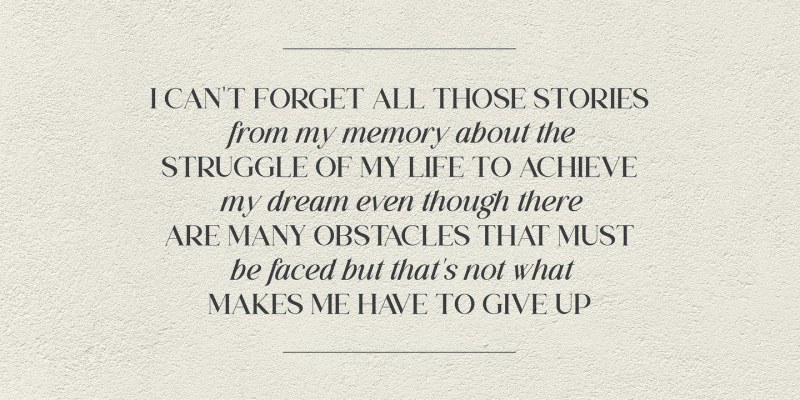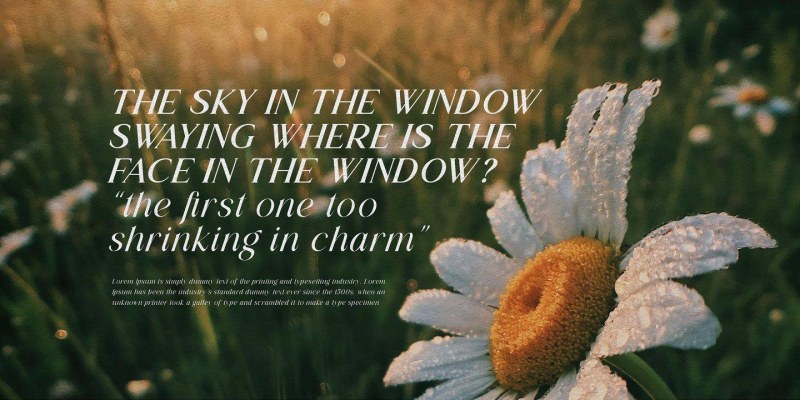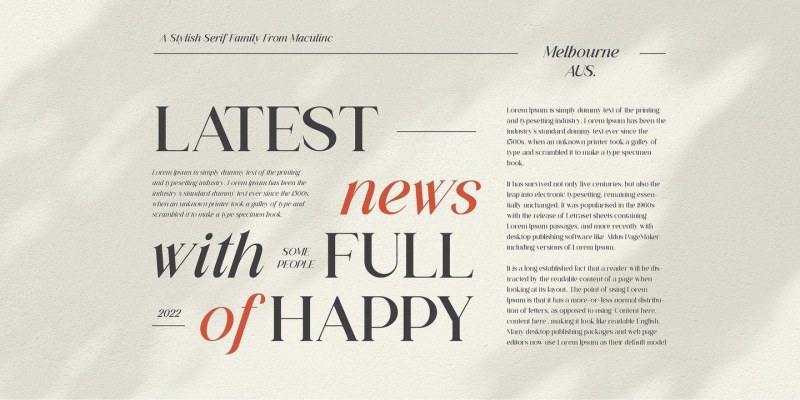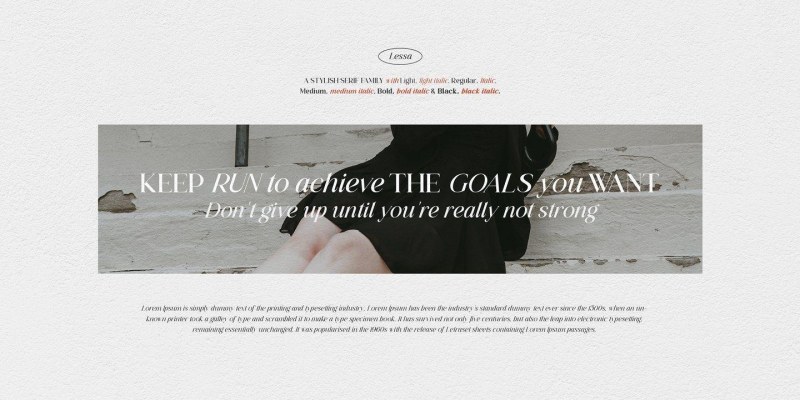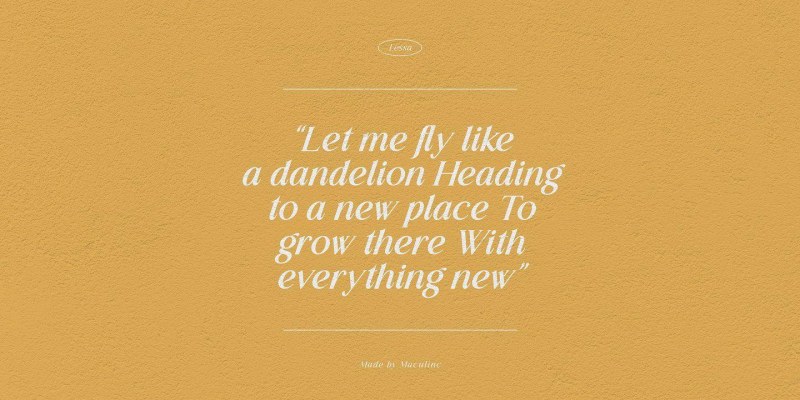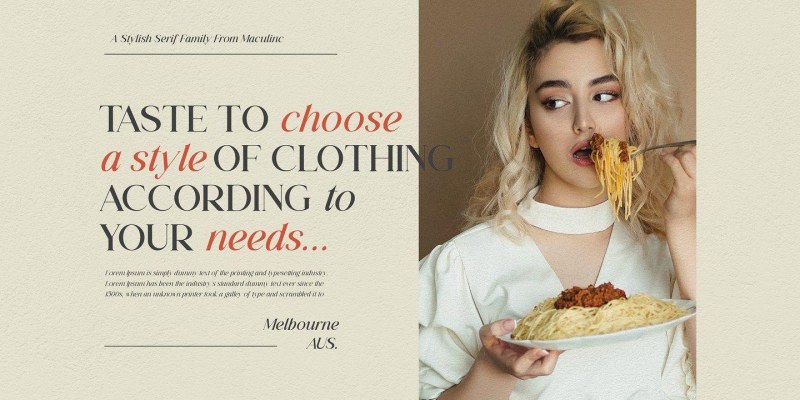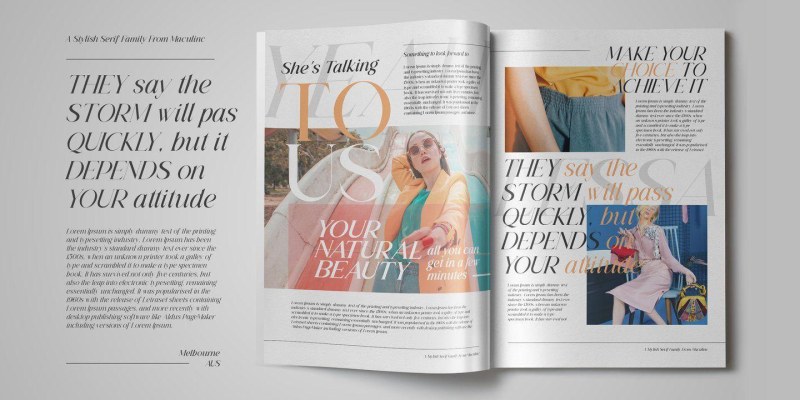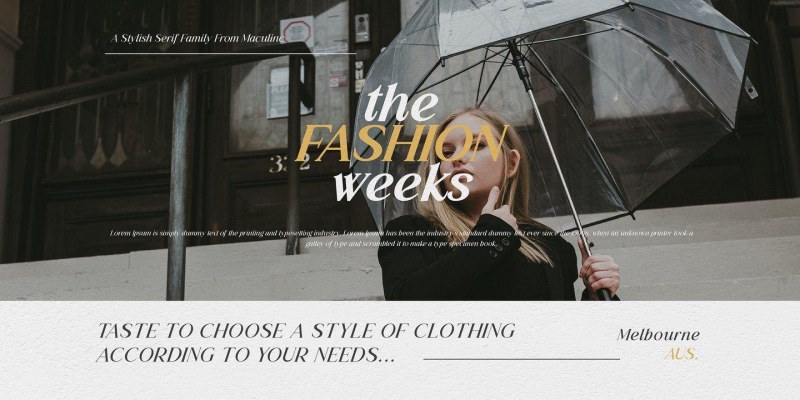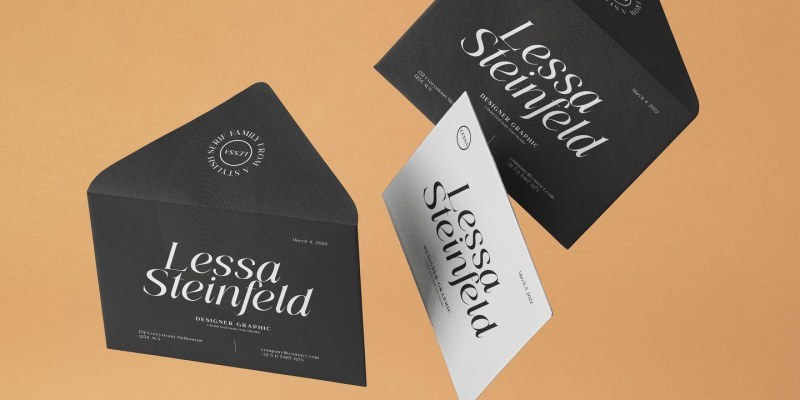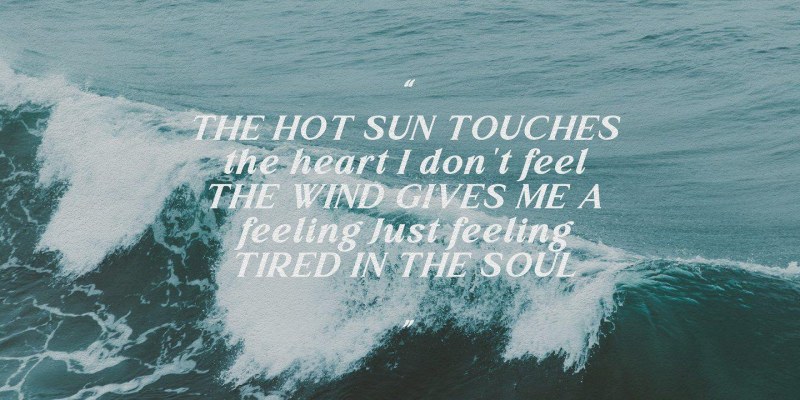
Lessa Font Family
Lessa is an elegant classic serif font family consisting of simple style serif fonts with a vintage look, with appropriate cursive calligraphy italics based on a number…
Lessa is an elegant classic serif font family consisting of simple style serif fonts with a vintage look, with appropriate cursive calligraphy italics based on a number of humanist italic scripts, perfect for creating templates, posters, brochures, logos and more. This font consists of upright and italic fonts (10 in total) all of which have the same number in each letter, Lessa is equipped with multi-languages and is supported by various languages from various countries.
Where Lessa Font Family works best
Lessa Font Family gives long-form text a classic, trustworthy rhythm — ideal for magazine spreads, annual reports and book interiors.
Pair Lessa Font Family with generous letter-spacing for wordmarks in fashion, hospitality, wine and jewellery branding.
Use Lessa Font Family for slide titles in Keynote, PowerPoint or Google Slides to add authority without looking dated.
What is Lessa Font Family good for?